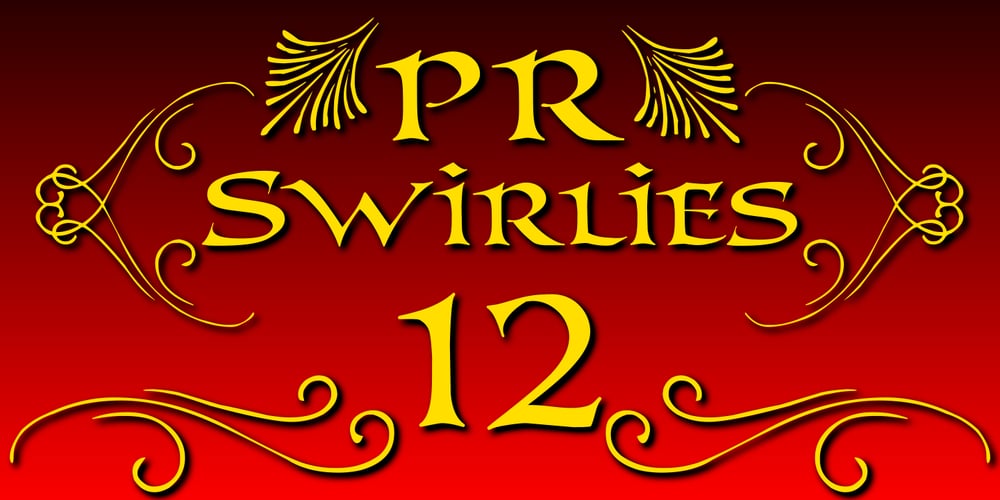
PR Swirlies 12
PR Swirlies 12 font
PR Swirlies 12 Font Family was designed by Peter Rempel and published by PR Fonts. PR Swirlies 12 contains 1 styles and family package options. This font is a collection of simple calligraphic ornaments suitable for invitations, gift tags, and anything that can benifit from a “spoonful of sugar” visually.